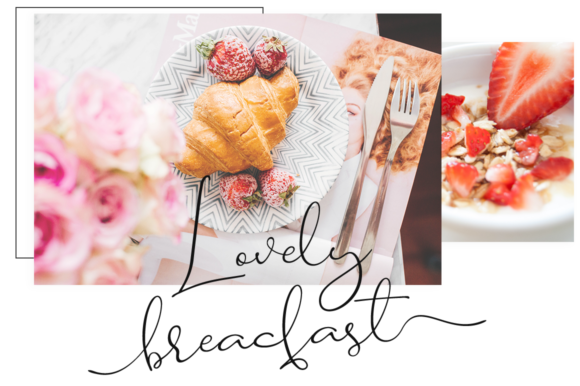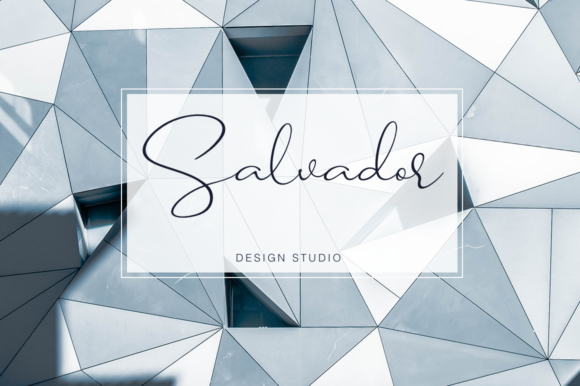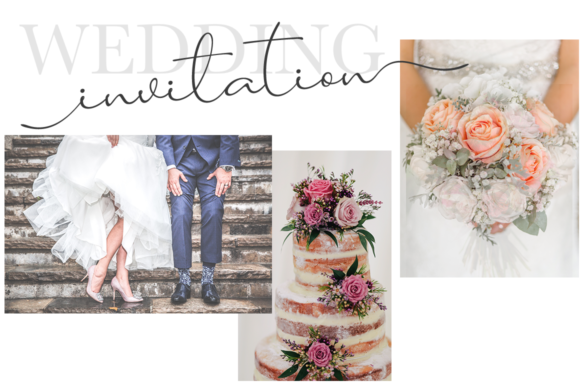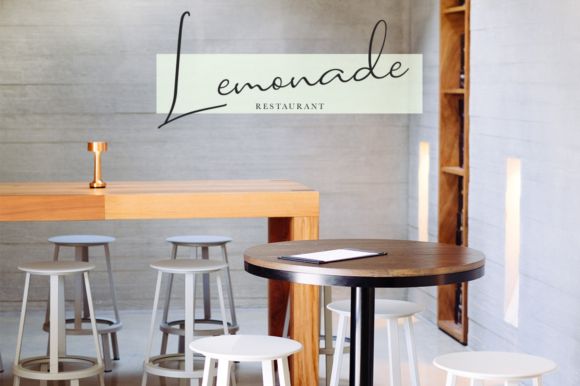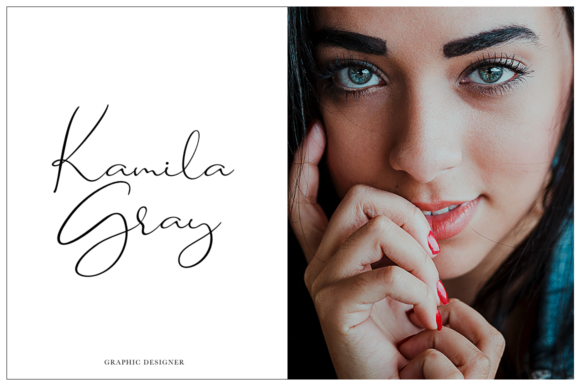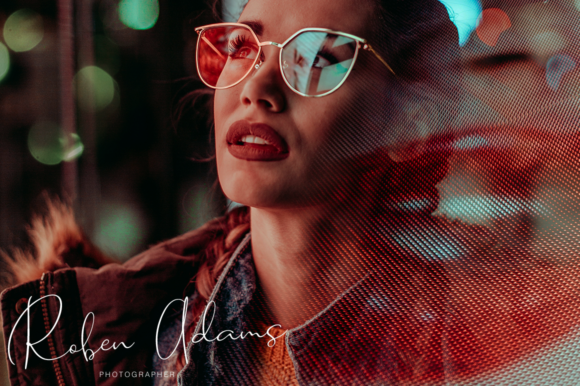
Introduction to Rhonely Font
Rhonely is a stylish signature font which is ideal for branding and decorating your project.
With itโs fine lines and swashes, Rhonely has a feminine look and feel .
Key Features of Rhonely Font